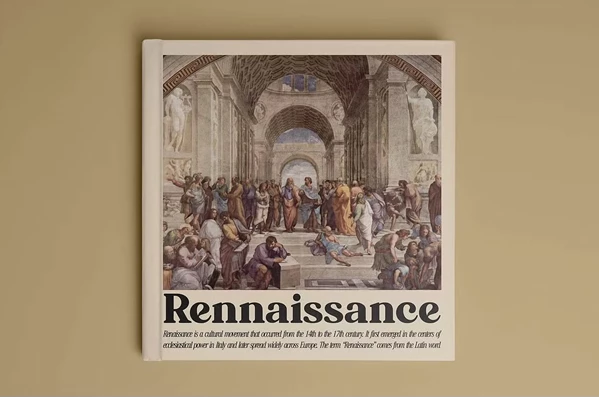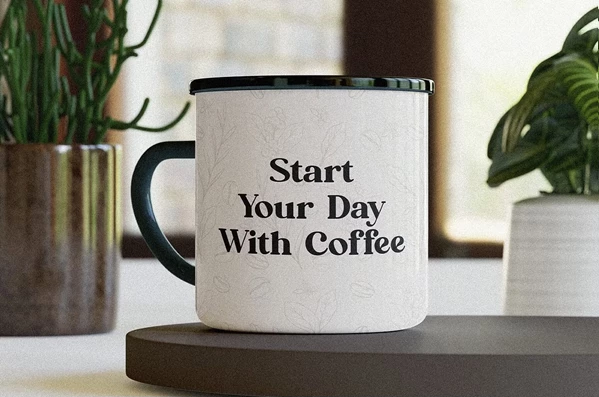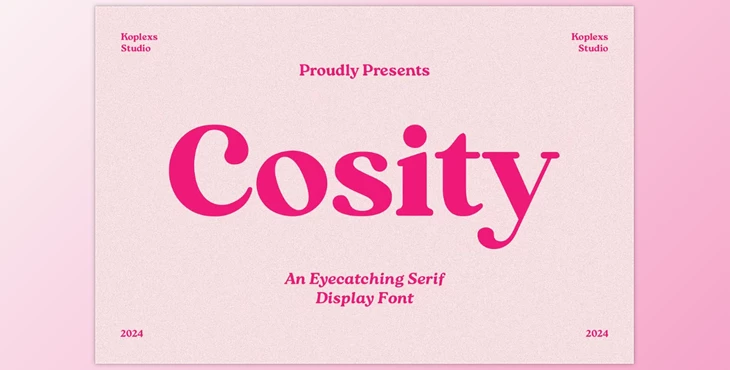
Cosity - Display Serif Font:
Cosity - Display Serif Font is a versatile typeface tailored to accent creative works with elegance. It comprises Regular and italics and offers a substantial visual impact with clean curves and refined serifs.
Cosity is ideal for branding, invitations, and editorial design owing to his ageless feel and charm.